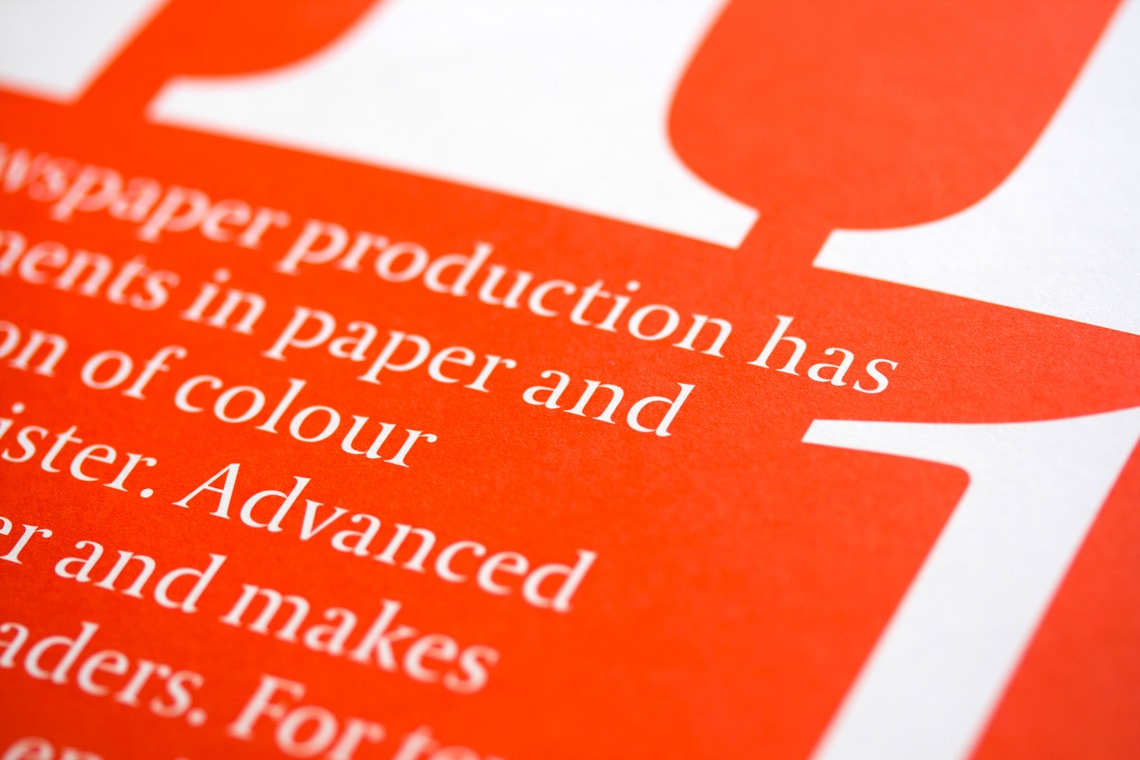
Coranto poster
French designer Claire Coullon created this beautiful poster using Coranto 2, by Gerard Unger. The typeface breathes elegance and serenity typical for Unger's creations. It comes for free with the purchase of the Coranto 2 Bundle.